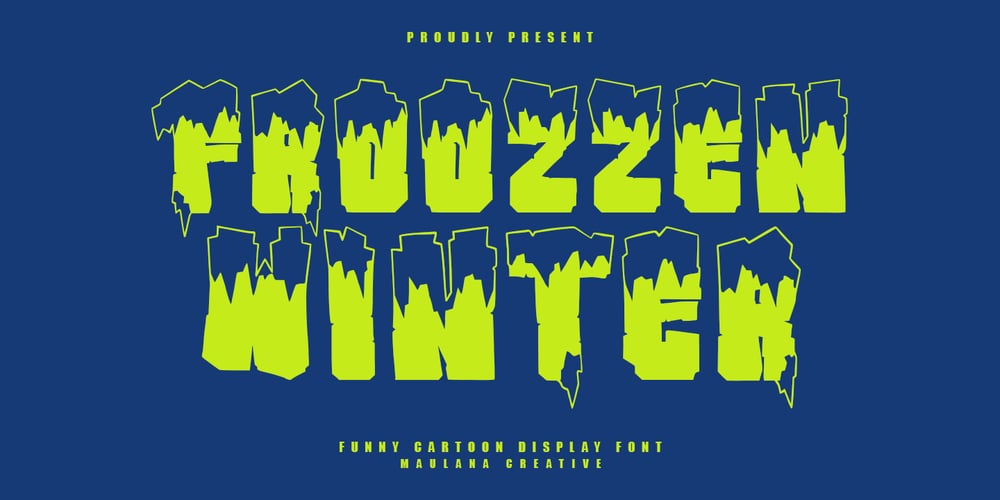
MC Froozzen Font Family was designed by Gilang Maulana and published by Maulana Creative. MC Froozzen contains 1 styles and family package options. Froozzen is a winter funny handmade display font. With a ice cold stroke, cooler character with alternate to give you an extra creative work. Froozzen font support multilingual language. This font is good for logo design, Social media, Movie Titles, Books Titles, a short text even a long text letter and good for your secondary text font with sans or serif. Make a stunning work with Froozzen font.Cheers,Maulana Creative